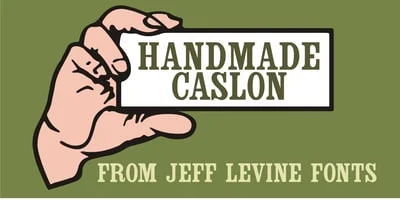
Handmade Caslon JNL Font
Handmade Caslon JNL Font is perfect for artisan craft workshops, traditional printing houses, historical document reproductions, handmade book publishing, colonial heritage projects, vintage typography exhibitions, traditional calligraphy schools, and authentic letterpress materials. This distinguished typeface brings handcrafted typography tradition and artisanal printing excellence to any design project celebrating the timeless art of traditional letter-making and hand printing craftsmanship.
What makes Handmade Caslon JNL Font exciting is its authentic recreation of hand-cut type traditions combined with classical Caslon elegance that perfectly captures the meticulous craftsmanship and typographic excellence of traditional letterpress printing and artisanal type-making. The carefully crafted letterforms feature hand-carved character and classical proportions that create an unmistakably authentic appearance. Each character reflects centuries of printing tradition, making it ideal for projects that honor typographic heritage, handmade quality, and the enduring beauty of traditional printing arts.
The Handmade Caslon JNL Font family typically includes regular weight with complete uppercase and lowercase letters, numbers, punctuation marks, and traditional printing symbols. Many versions feature additional handcrafted variations, letterpress elements, and classical typography symbols that enhance the artisanal aesthetic and provide creative flexibility for heritage printing and traditional craft design applications.
Whether you're developing traditional printing brands or creating heritage typography materials, Handmade Caslon JNL Font offers unmatched typographic authenticity and artisanal excellence. This distinguished typography choice transforms modern text into handcrafted communications that resonate with audiences appreciating traditional printing arts and typographic craftsmanship. The font's authentic construction ensures exceptional performance across heritage applications while maintaining its distinctive handmade character that makes every design project feel like a precious piece from the golden age of printing where every letter was carved by hand with master craftsman precision.